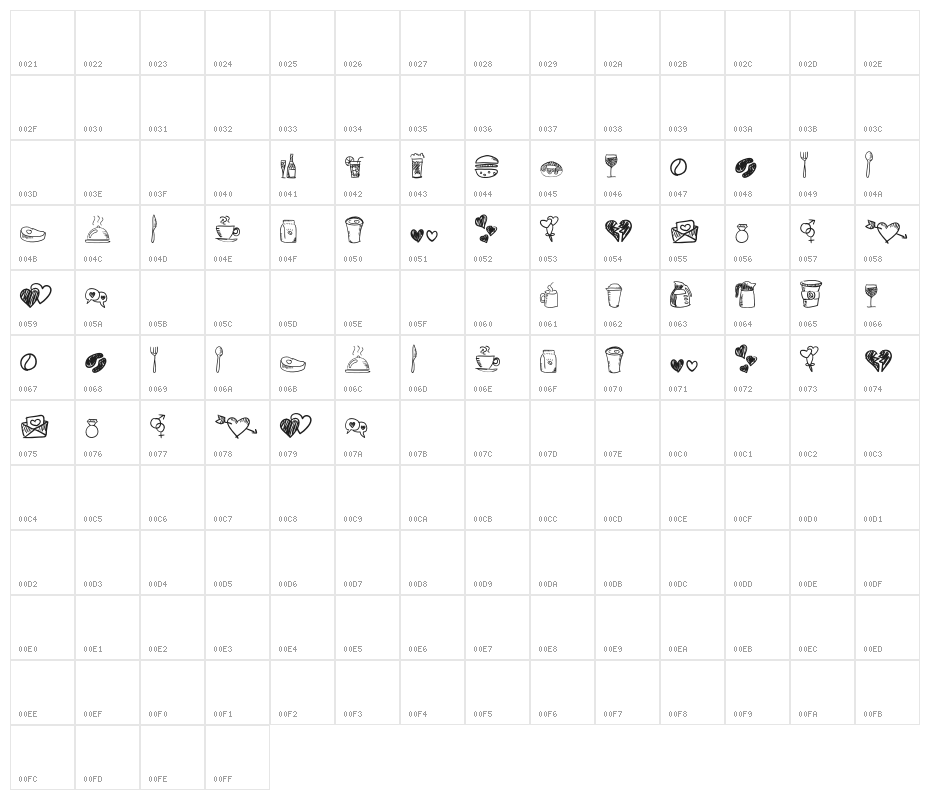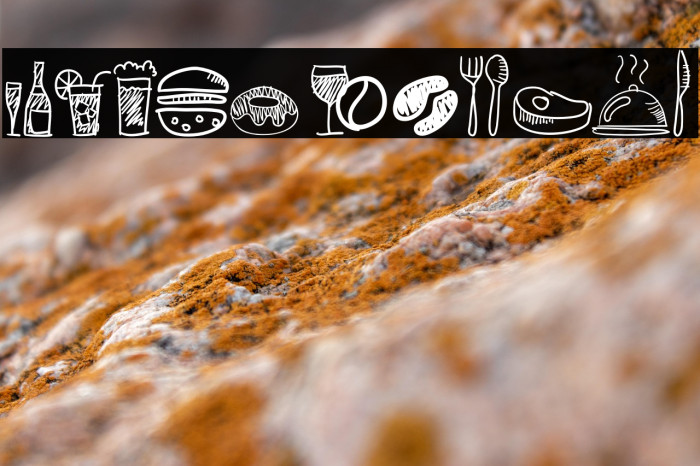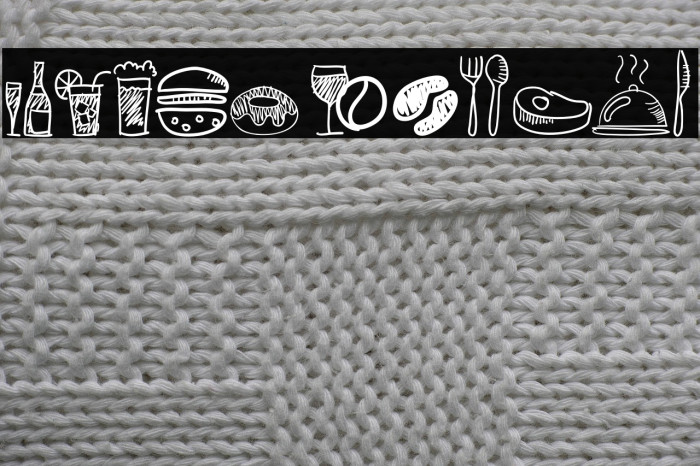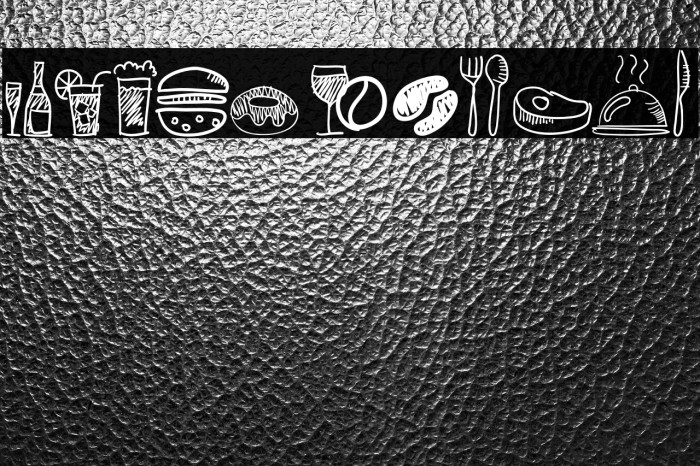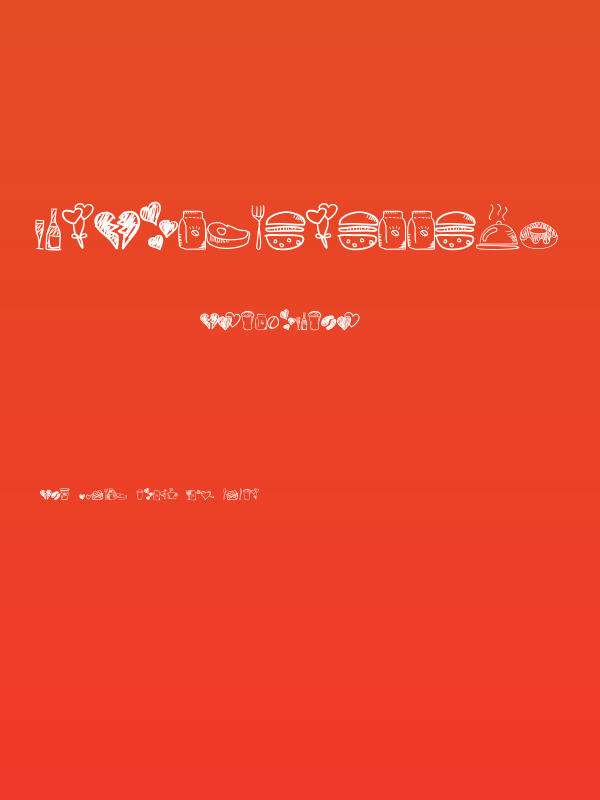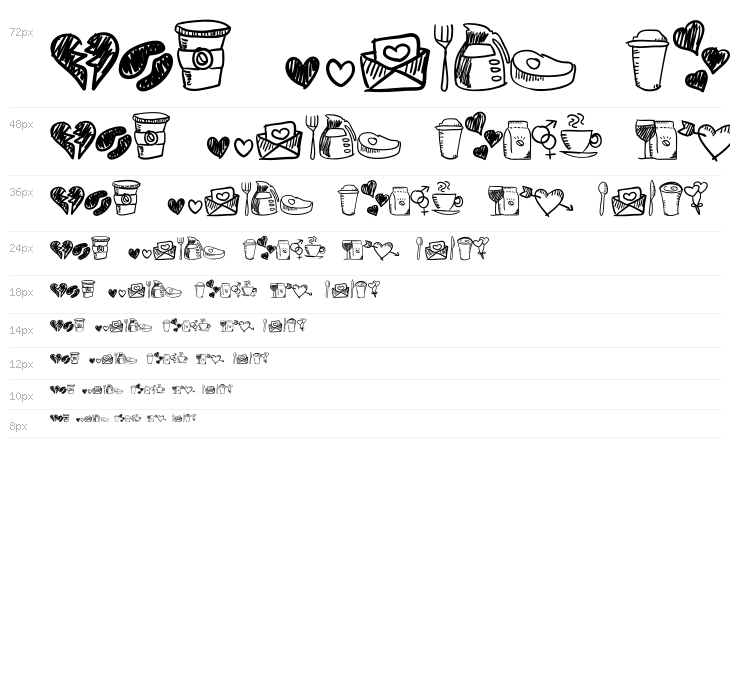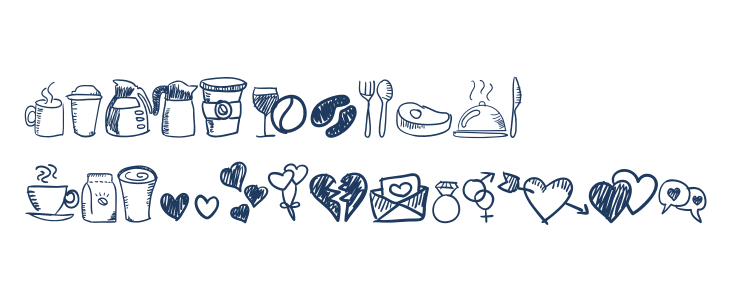
AstrokidsDoodle Font
AstrokidsDoodle Description
| Overall Style | Playful, Whimsical, Hand-drawn |
| Use Case | Decorative elements, Icons, Themed graphics |
| Proposed Projects | Children's books, party invitations, greeting cards, playful branding, educational materials, social media graphics. |